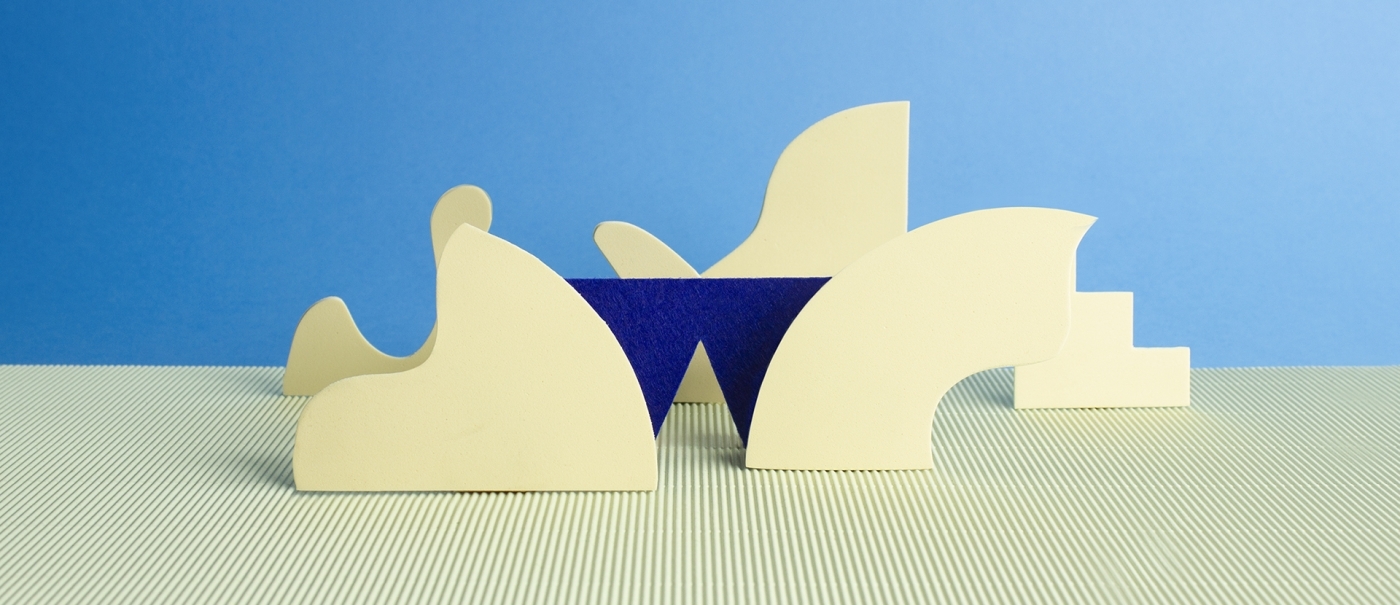
Landscape Typeface
Landscape Typeface was originated for the 36 Days of Type project. It shows the alphabet in different ways playing with shapes that were created using materials like papers and foamy applied in variety of set designs.